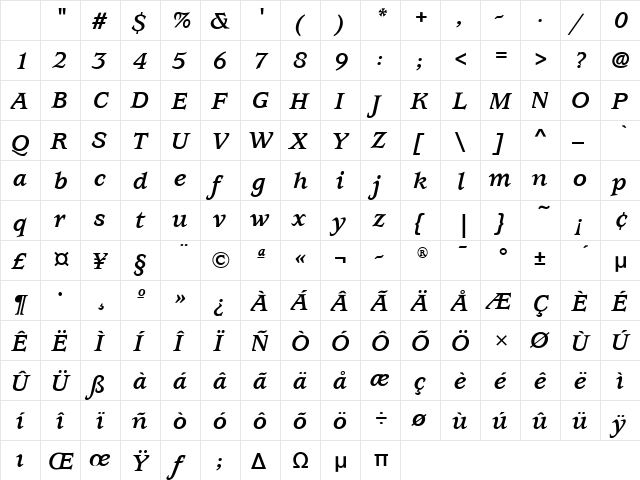
Complete UsherwoodITC Bold Italic glyph index. Displaying only characters natively supported by UsherwoodITC Bold Italic font.
UsherwoodITC echoes the hand-painted signage and woodblock typography of the American frontier, with a warm, rugged personality. The slanted form adds forward momentum and visual energy. Its bold stroke weight gives it real presence on the page.
Font Pairing: Combine UsherwoodITC with a simple slab or neutral sans - period-accurate companions reinforce the vintage feel without competing for attention.
Pro Tip: Use UsherwoodITC for short, impactful bursts of text - it shines in poster headlines and product names rather than extended copy.